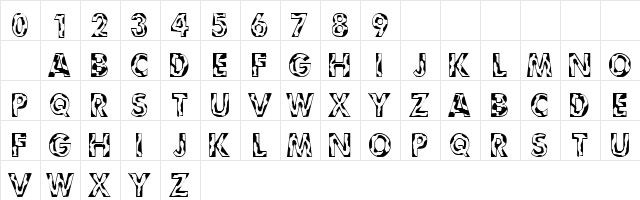
101! Camouflage Regular
Design Context for 101! Camouflage Typeface
101! Camouflage draws on military and industrial lettering traditions, with forms that communicate strength and precision.
Designed for tactical branding, military-inspired apparel, action game UI, and utility-focused signage.